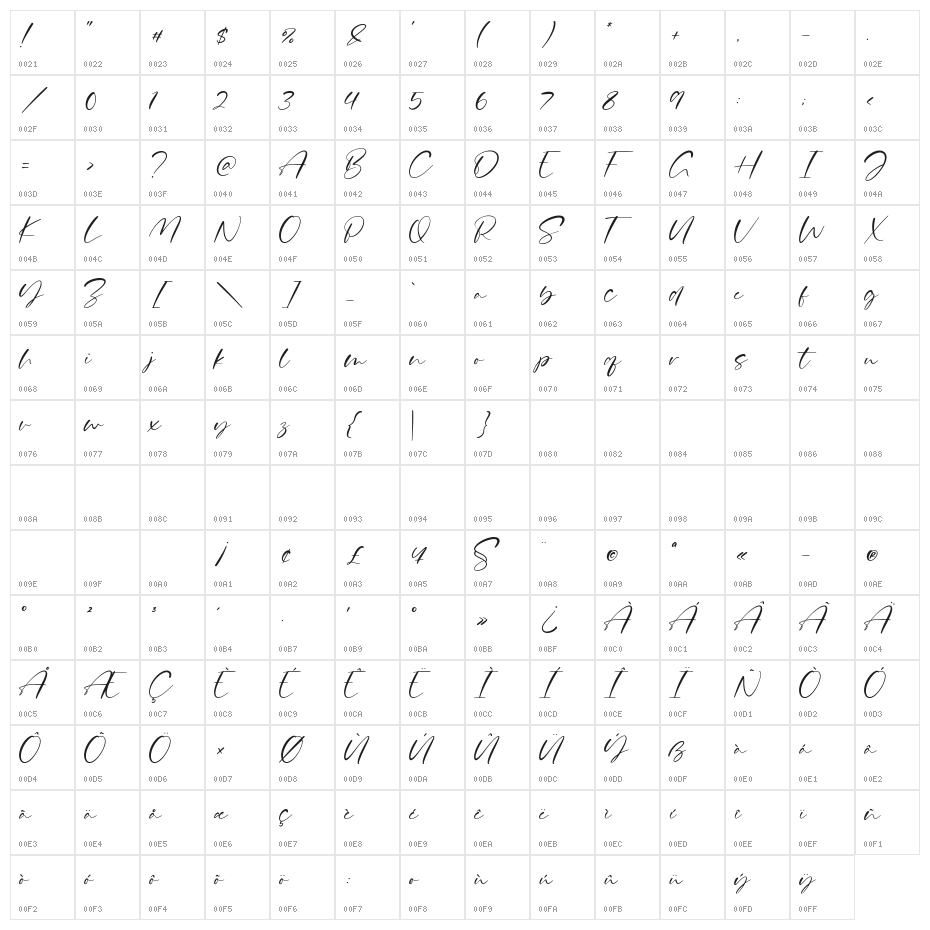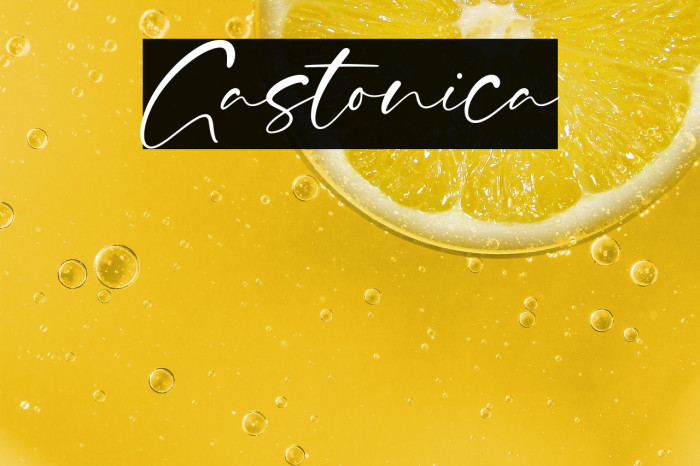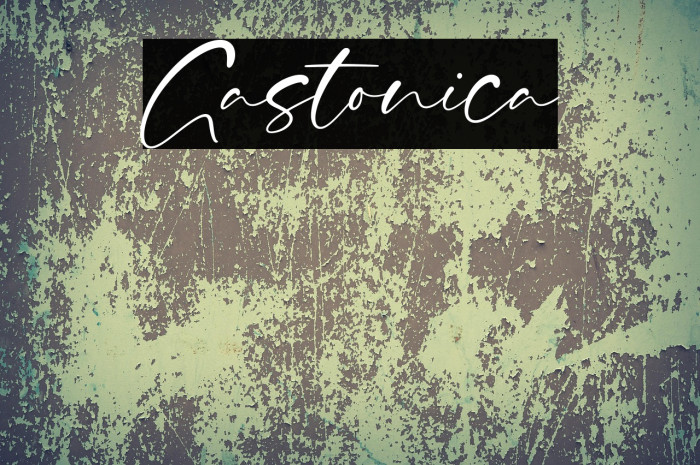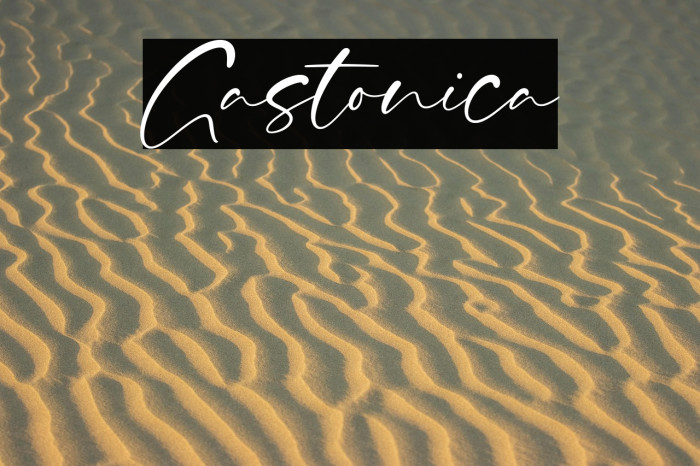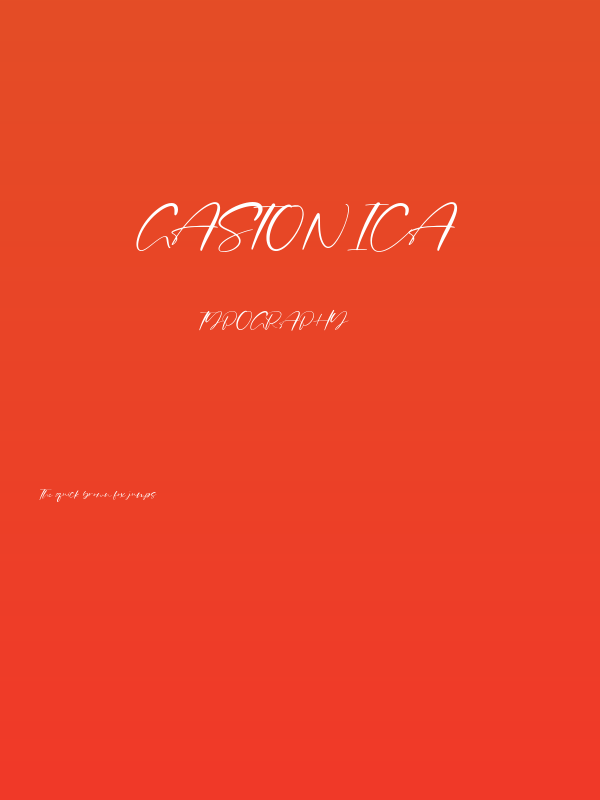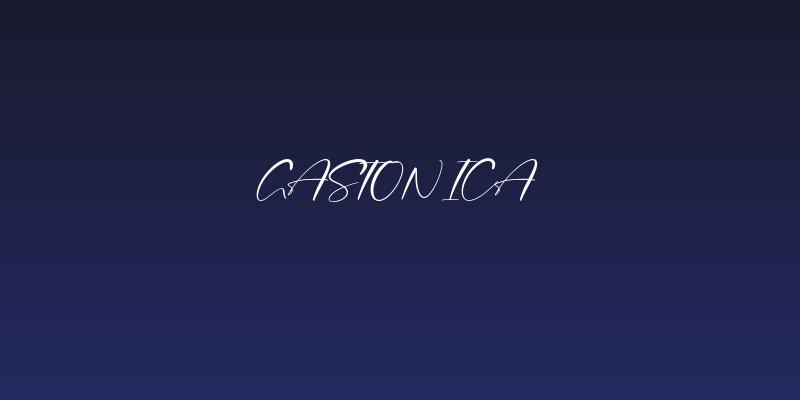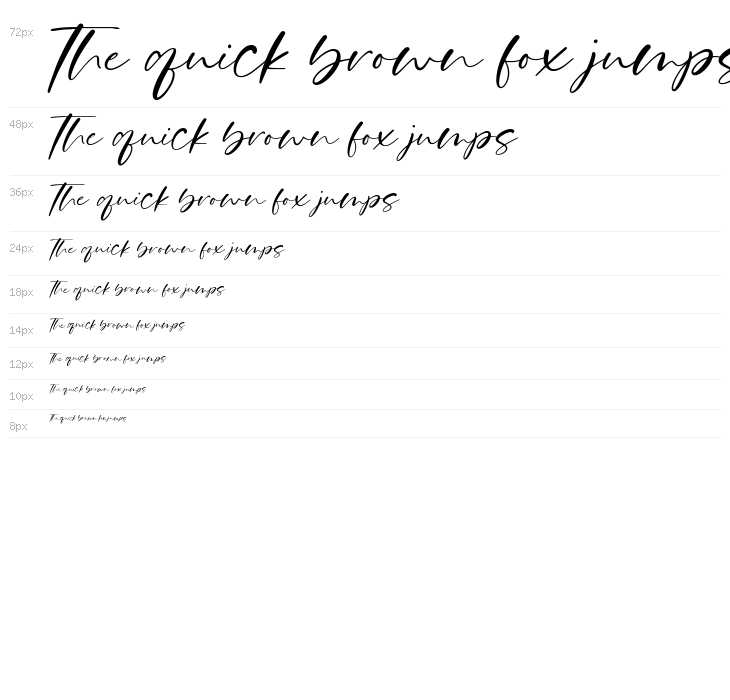
Gastonica Font
Gastonica Description
A flowing, elegant script font with a handwritten style, featuring smooth curves and varying stroke widths.
| Proposed Projects | Wedding invitations, greeting cards, branding. |